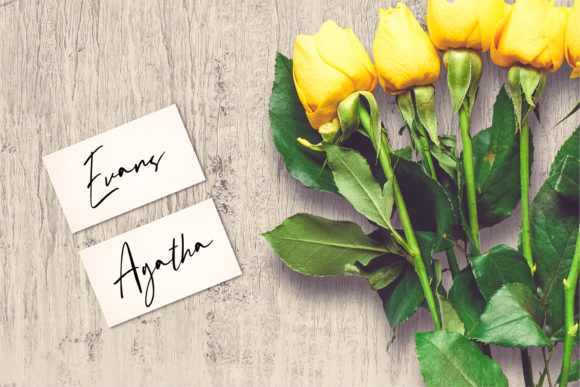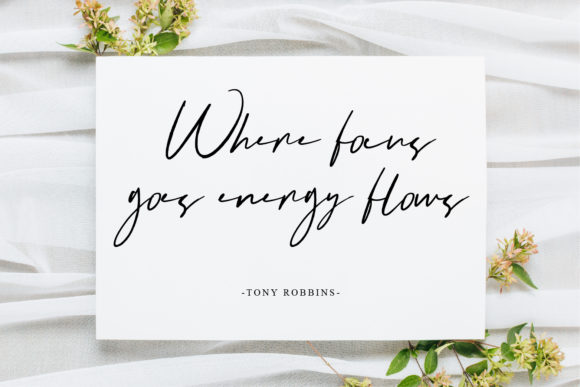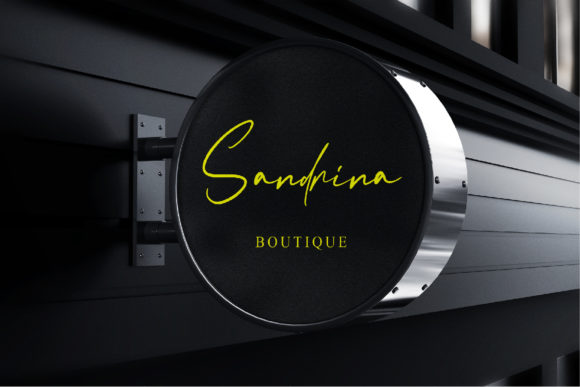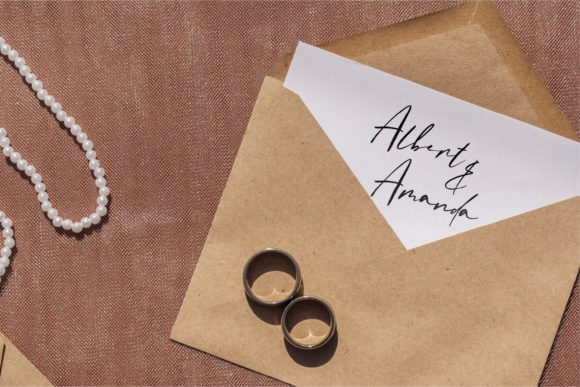
About Kendrick Font
Kendrick is an incredibly distinct, delicate and timeless handwritten font. It looks stunning on wedding invitations, thank you cards, quotes, greeting cards, logos, business cards and every other design which needs a handwritten touch.